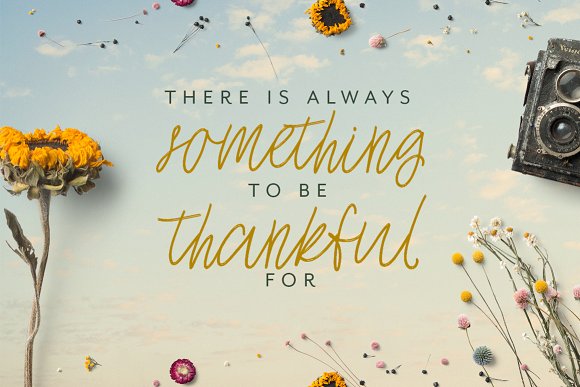
Introducing Joy Flight Script - The Font That Will Lift Your Designs to New Heights!
Step into a world of pure imagination with Joy Flight Script, a font that will ignite your creativity and take your designs to breathtaking heights.
Handcrafted with meticulous care by the talented designers at Creativeqube, Joy Flight Script is a work of art that captures the essence of boundless joy and effortless elegance. Its graceful curves, playful flourishes, and enchanting personality will add a touch of magic to your projects, leaving a lasting impression on all who encounter them.
Whether you're crafting enchanting invitations, designing whimsical logos, or creating captivating social media posts, Joy Flight Script is the perfect choice for adding a touch of whimsy and wonder to your creations. Its versatile nature makes it suitable for a wide range of projects, from formal invitations to playful packaging designs.
This beautiful script font will add a touch of enchantment to any project, making it perfect for creating:
- Eye-catching social media graphics
- Unforgettable branding elements
- Enchanting invitations and greeting cards
- Whimsical posters and flyers
- Magical packaging designs
With Joy Flight Script, the possibilities are endless. Let your imagination soar and create designs that will captivate and inspire.
So, why not take your designs on an adventure with Joy Flight Script today? Its unique and captivating nature is sure to leave a lasting impression and make your projects truly unforgettable. Join the flight of fancy and discover the joy of creating with Joy Flight Script!